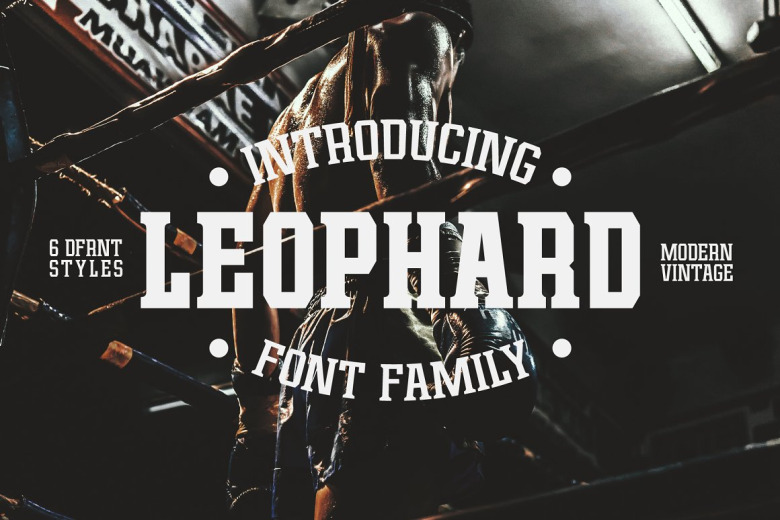
Leophard Font Family
Leophard Font
Leophard Font Family the modern slab serif which inspired from beautiful sporty design and vintage style. In this article, you will find 6 styles that help you in your projects. Fresh from the fingertips of Big Bunso Studio, a slick and simple-to-use font with the tenacity of basic shape-based fonts, the visual strength of everyone’s beloved gore fonts, the playfulness of old school movement, and the beauty of modern minimalism all bundled together within a single power-packed punch that aptly shows us more than it can spell.
Leophard Slab Serif Font Family